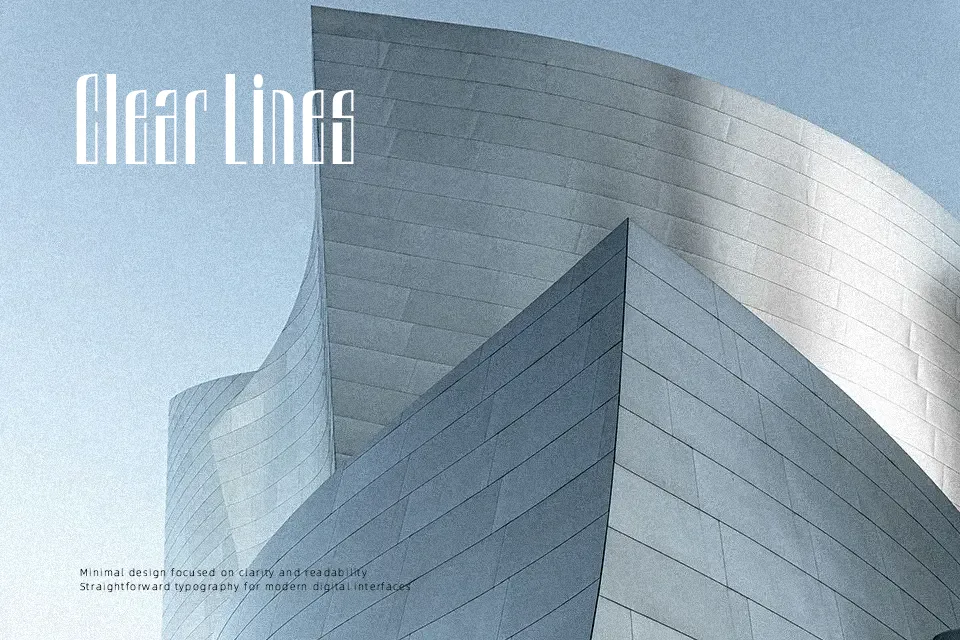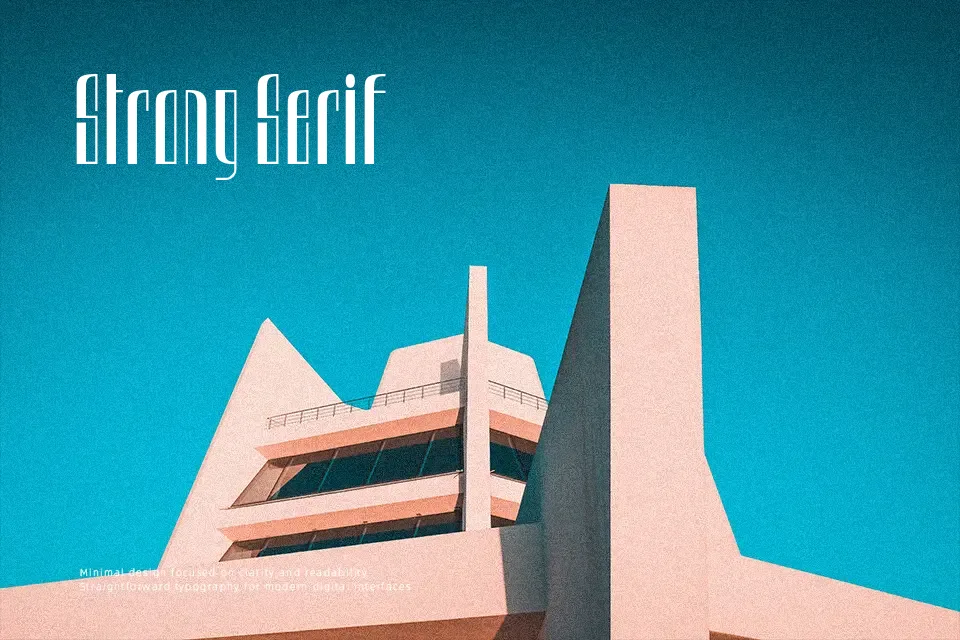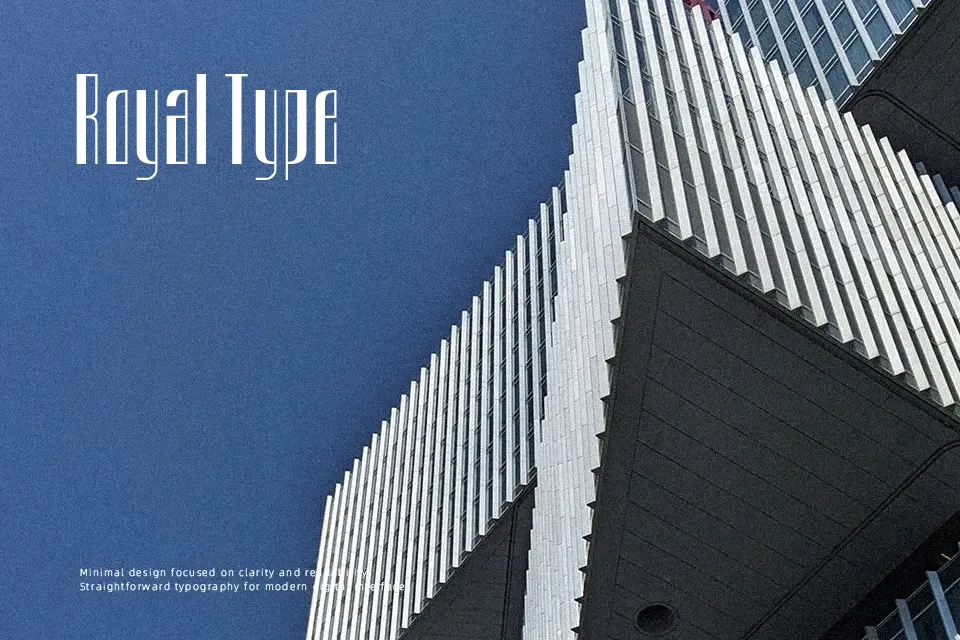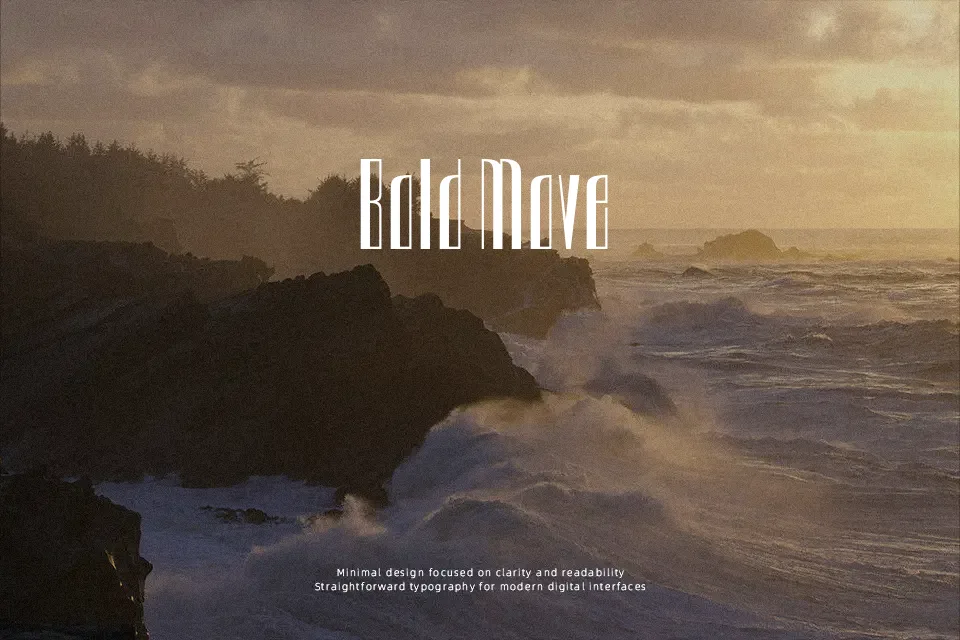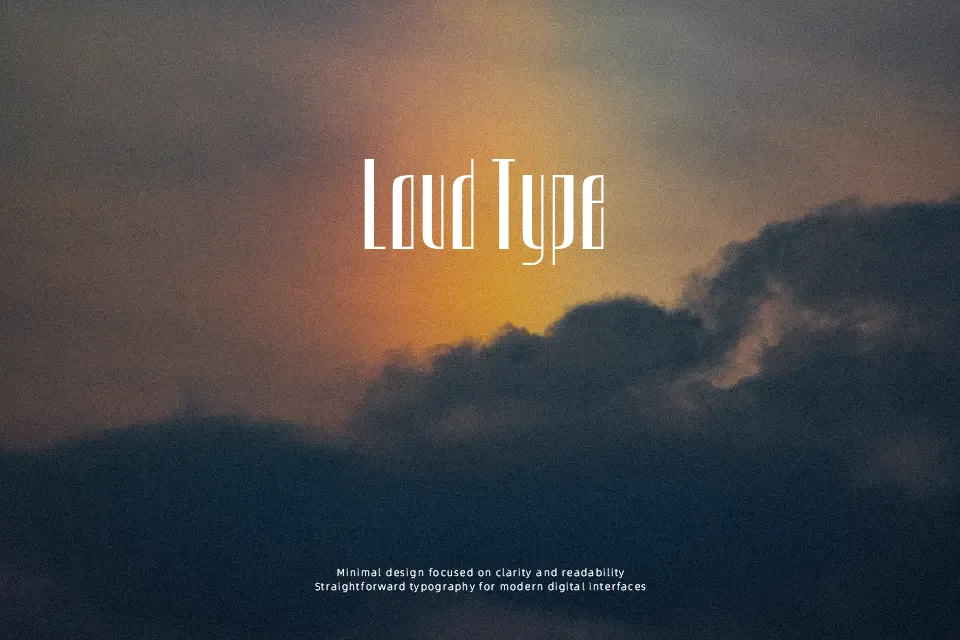
Urkelian Font
Designed by Typodermic Fonts
Urkelian Font features narrow, elongated letterforms defined by clean monoline strokes, high waists, and geometric Art Deco styling. Proportions remain deliberately vertical and condensed, producing an airy cadence with open spacing across titles and display settings. While capitals display sharp structural poise, the extremely slim line weight becomes fragile at smaller sizes, diminishing legibility in compact environments. The typeface excels in cocktail menus, boutique signage, and retro event posters where distinctive period styling commands visual focus. Continuous paragraphs lose reading comfort quickly, making the design far more effective when reserved strictly for concise headlines and architectural text treatments.
– vintage event posters
– luxury packaging labels
– boutique signage headers
– cocktail menu titles
– continuous body text
– mobile interface labels
– spreadsheet data
– small caption text
Perfect for branding, headline, and logo, with a clean and condensed style.